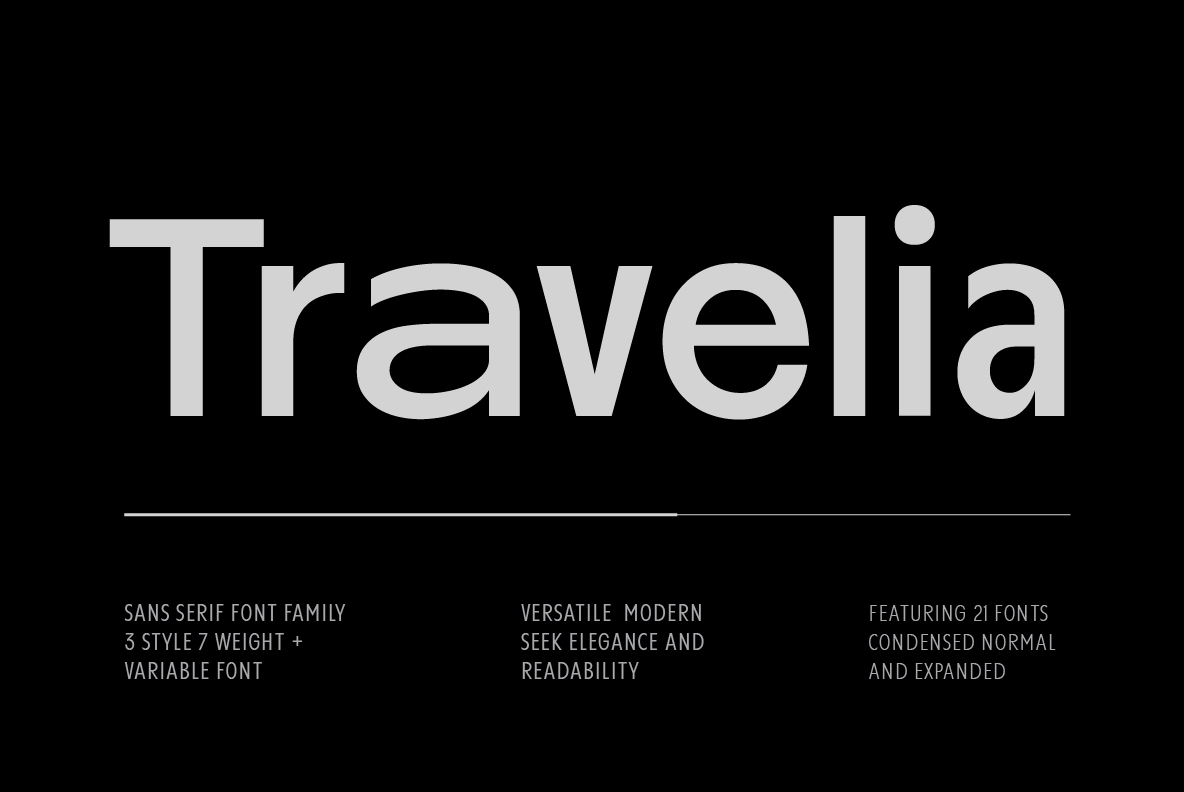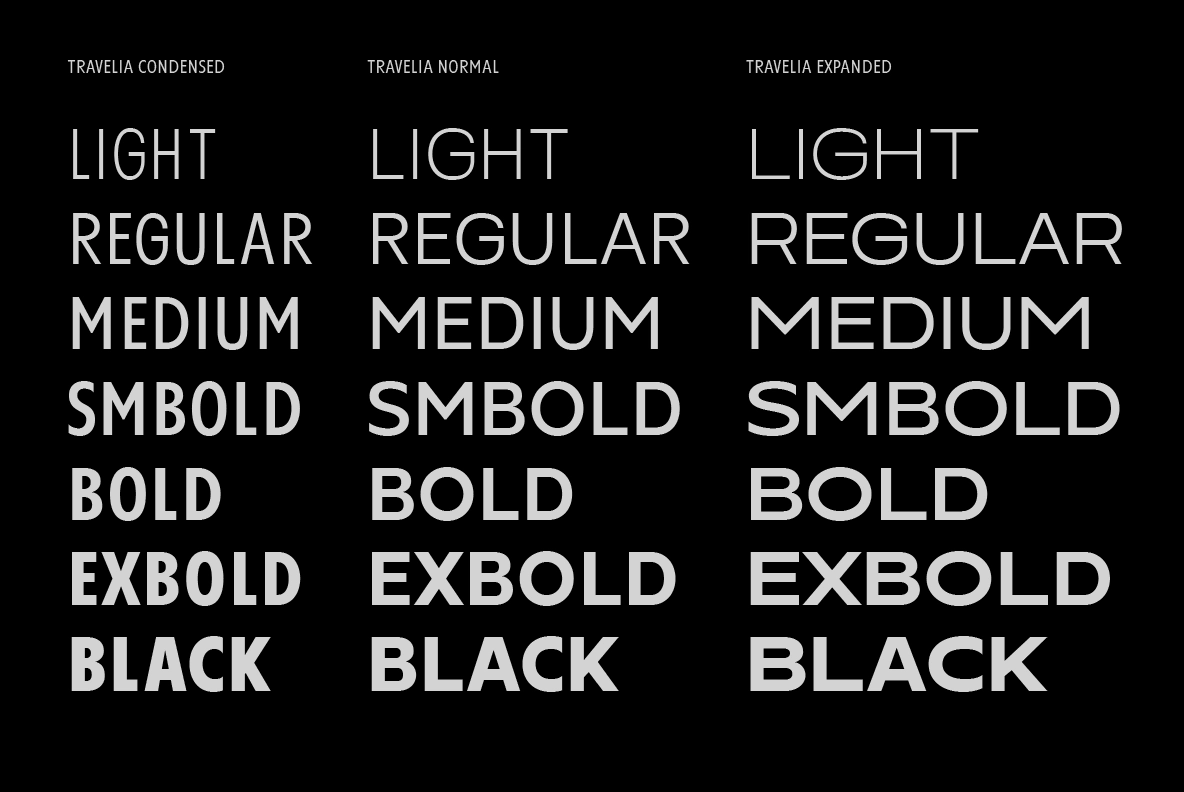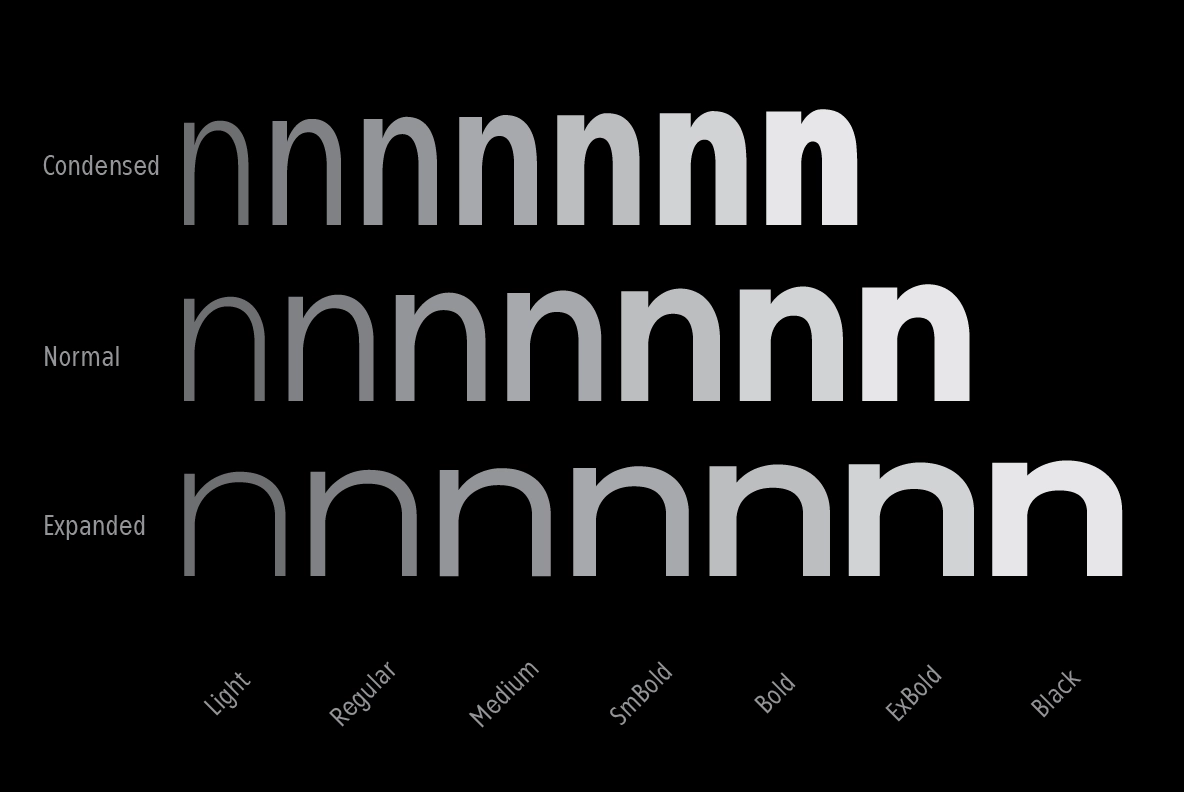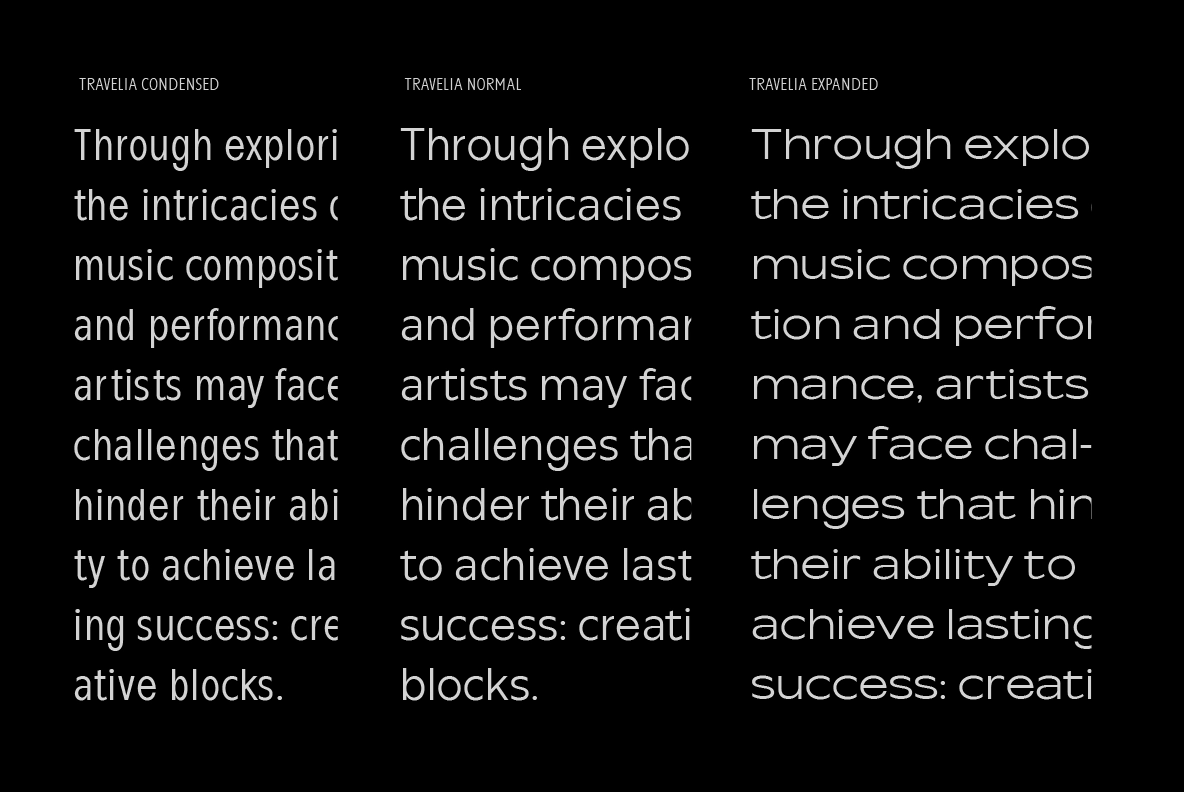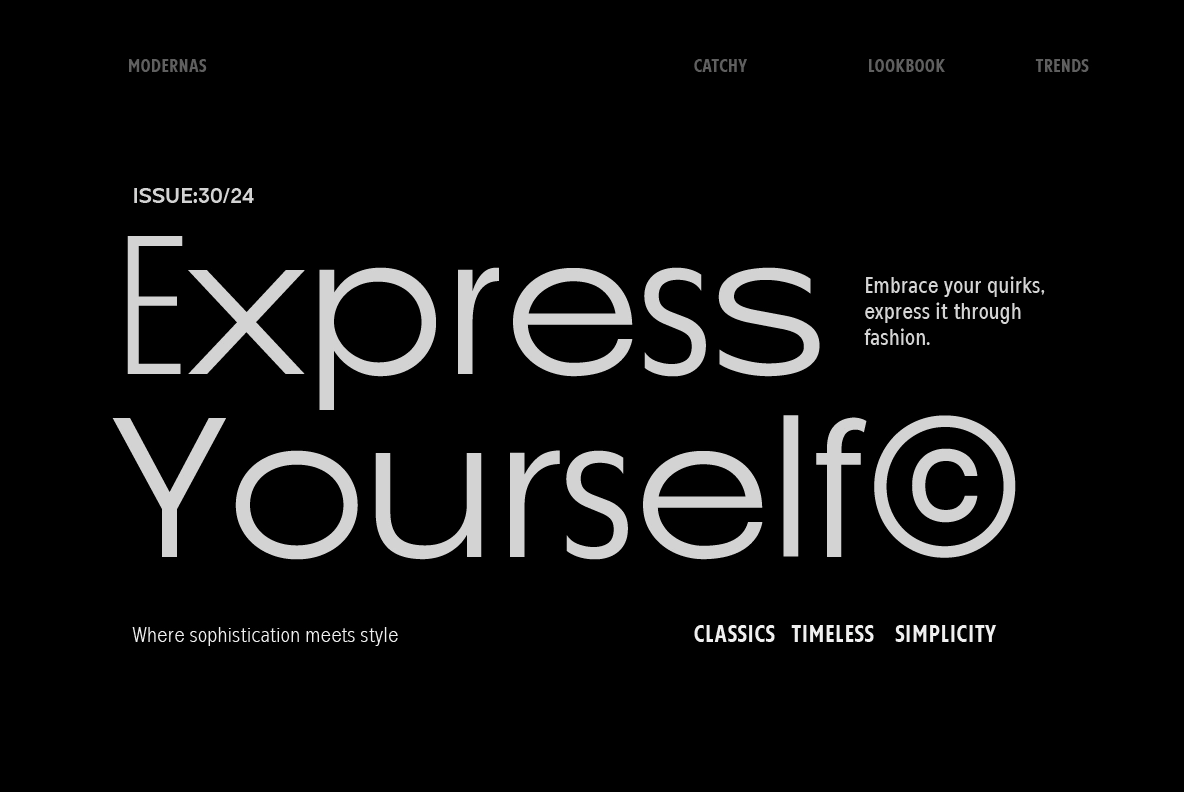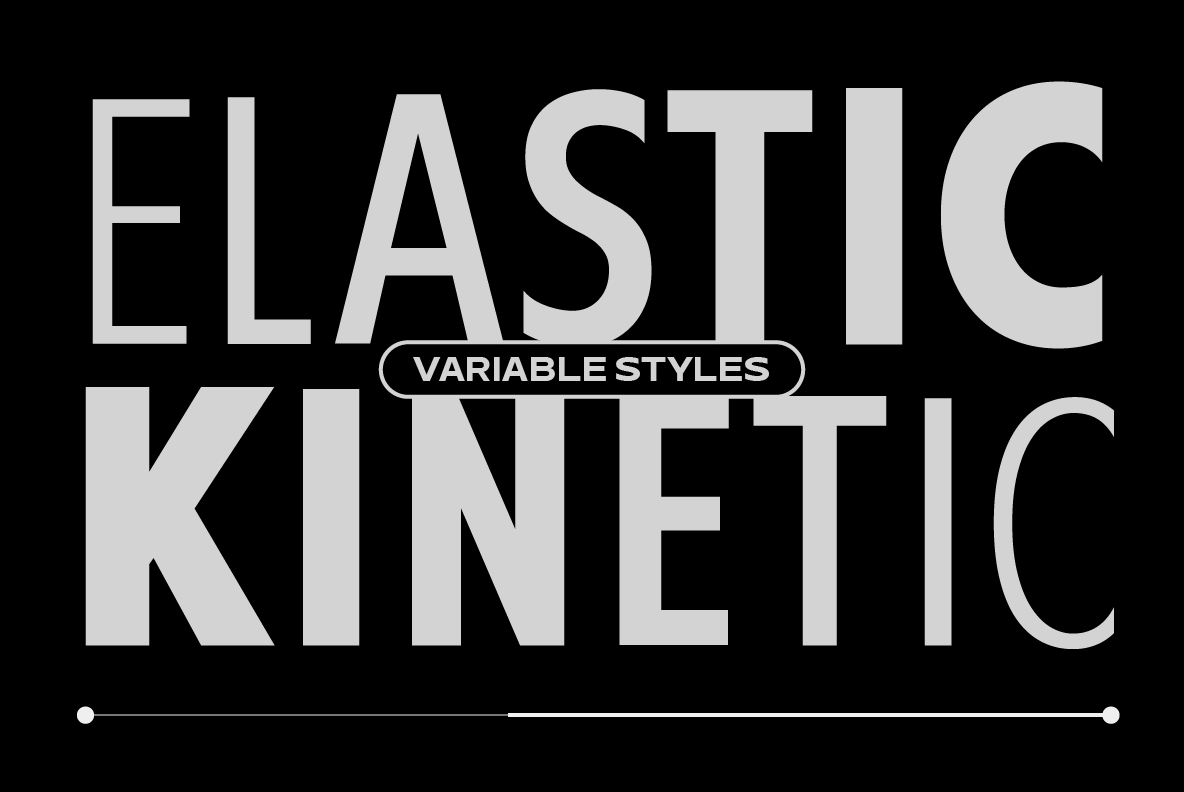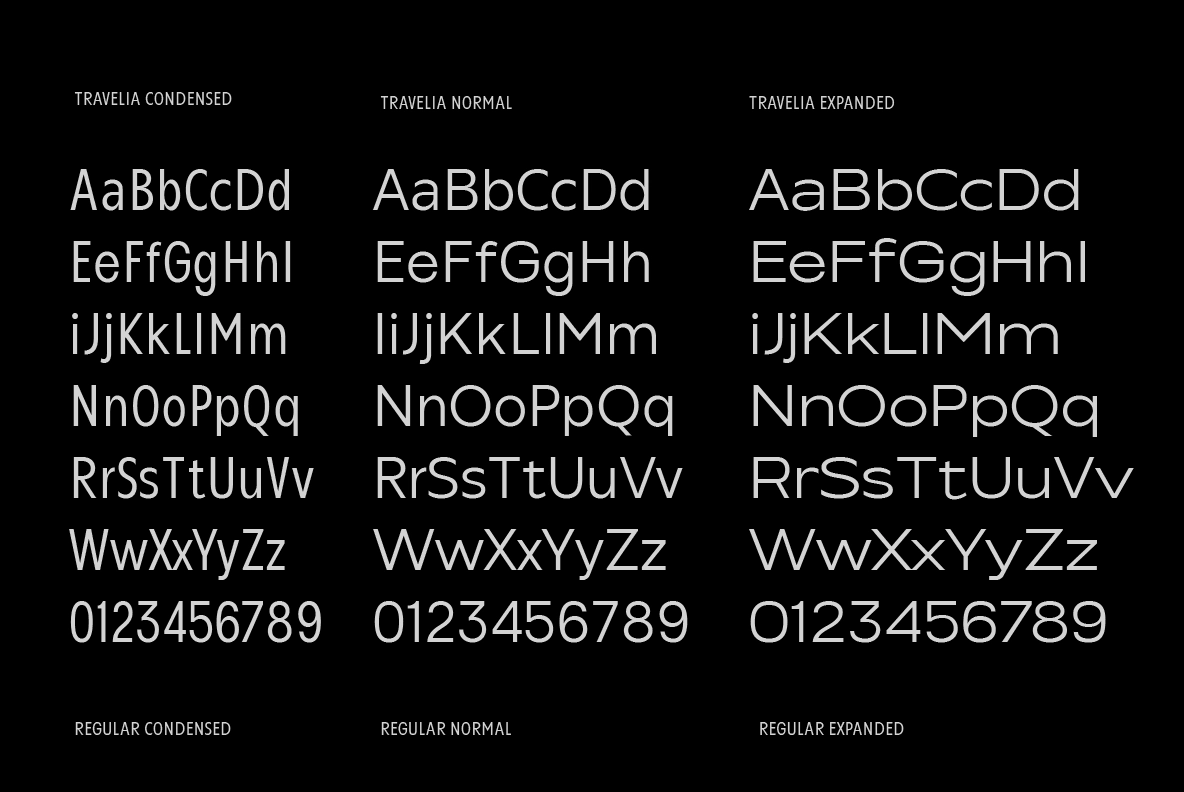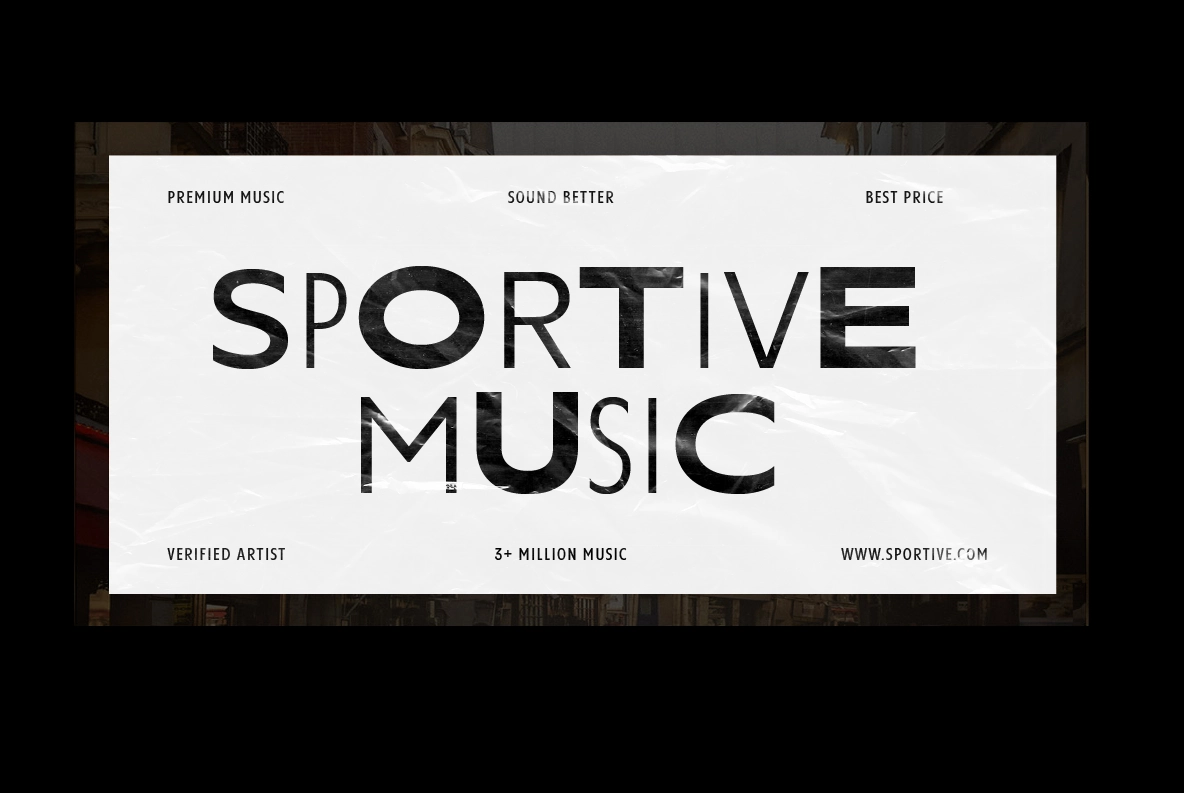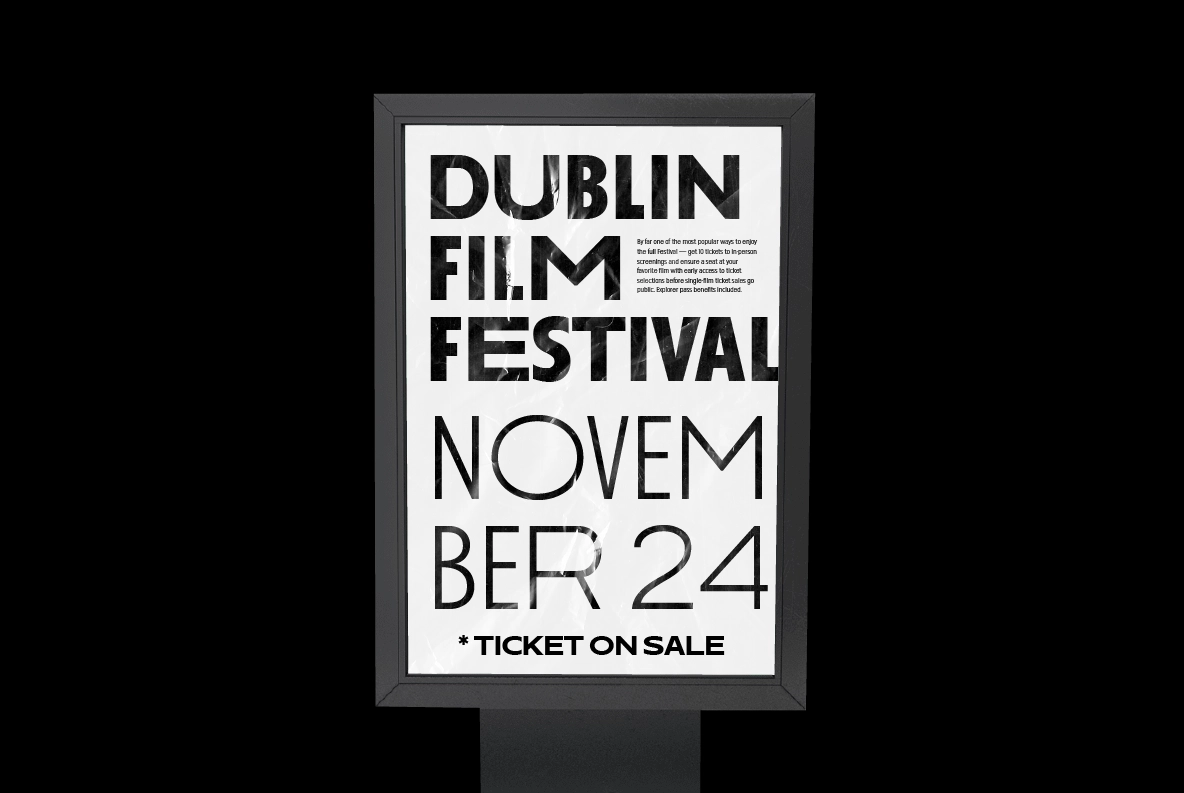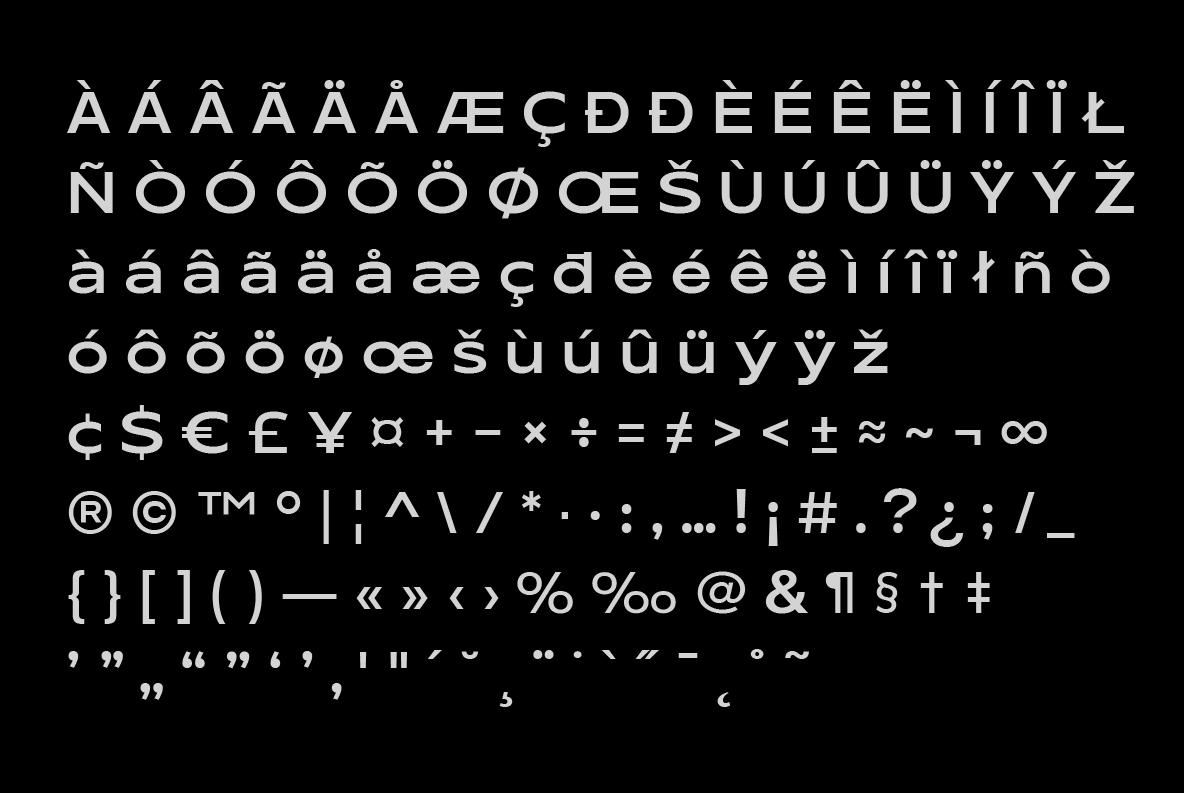
Travelia - Modern Sans Serif Font Family
This sans serif family is sharp, spacious, and quietly technical, with a geometric structure that keeps headlines crisp without losing readability in longer text . Its clean curves, straight-cut terminals, and three width options give designers room to set narrow editorial columns, balanced brand systems, or wide display typography with the same visual logic.
Travelia works well for logo design, fashion branding, architecture portfolios, magazine layouts, website headers, app interfaces, packaging, posters, lookbooks, advertising campaigns, signage, and more. The lighter weights are sleek and airy, while the heavier cuts bring strong contrast and confident presence for titles, covers, and campaign graphics.
- 3 Width Variations: Condensed, Normal & Expanded
- 7 Weights from Light to Black